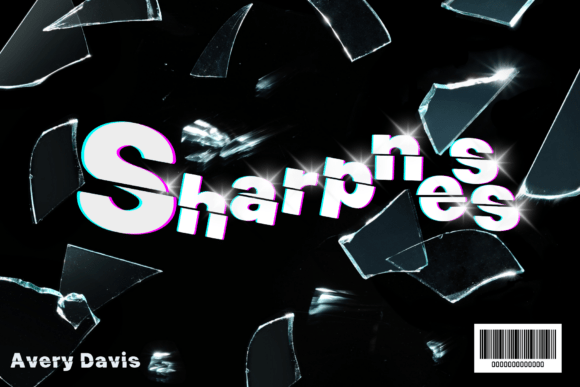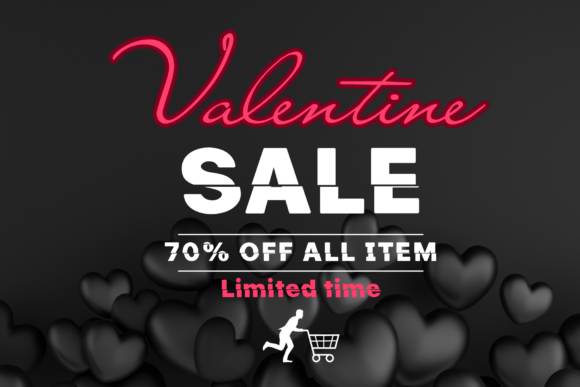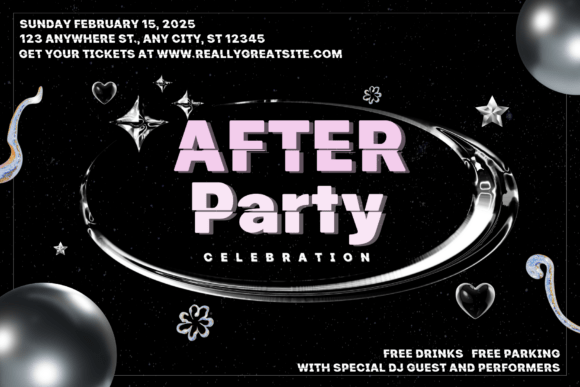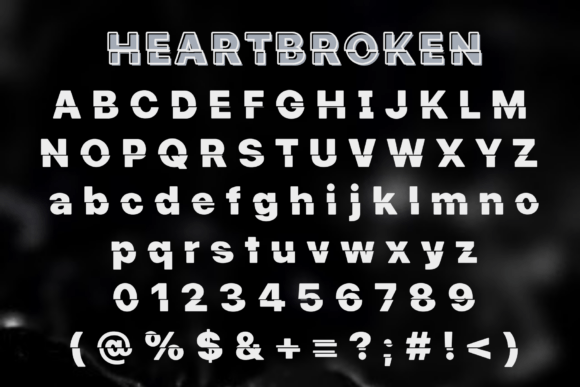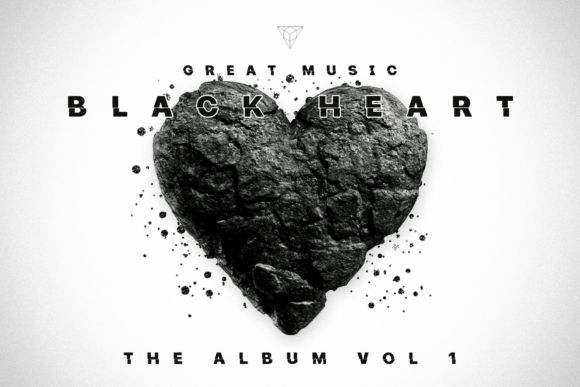
Introduction to Heartbroken Font
HEARTBROKEN is a bold modern display font featuring a unique split-line design that creates a striking “broken” visual effect.
Its strong geometric shapes combined with a subtle glitch style make it perfect for eye-catching headlines and impactful designs This font delivers a futuristic, edgy, and urban feel — ideal for projects that need a powerful and modern statement.
Key Features of Heartbroken Font
Why Choose Heartbroken Font?
Heartbroken Font offers exceptional quality and versatility, making it a valuable addition to your design toolkit. Whether you’re creating for personal projects or commercial use, Heartbroken Font delivers professional results.